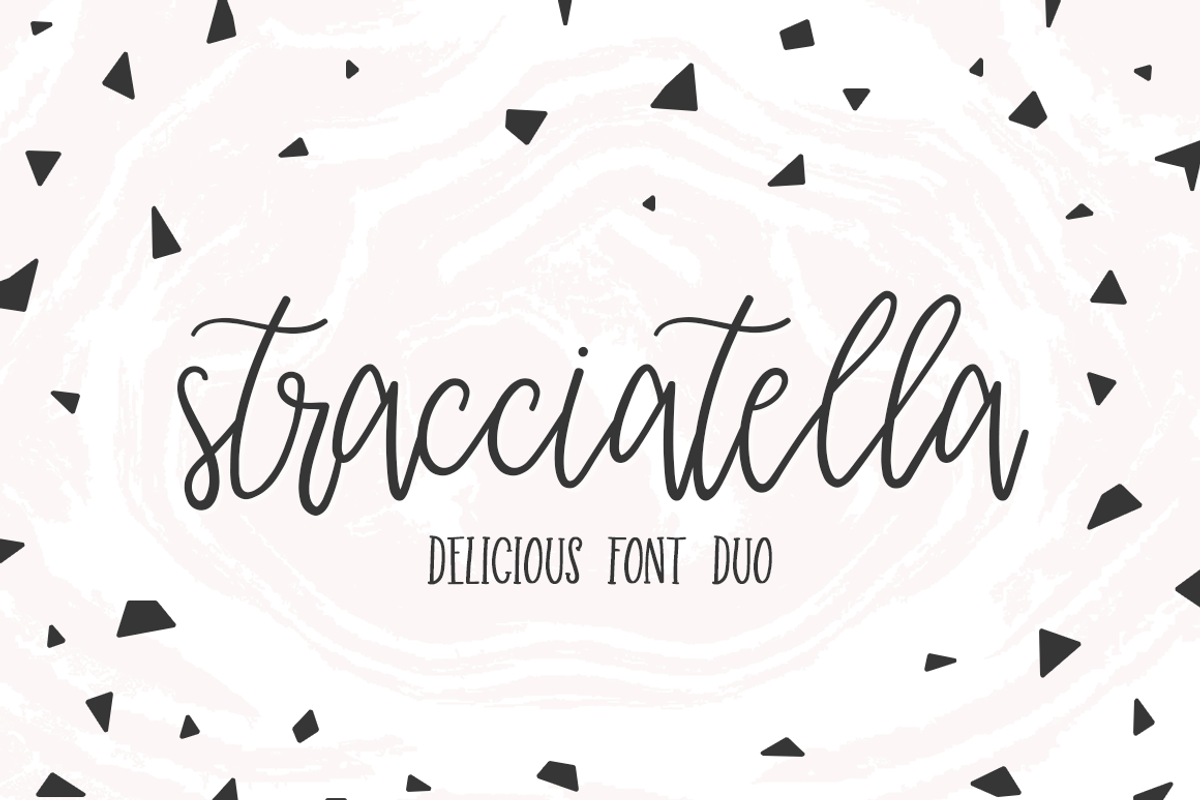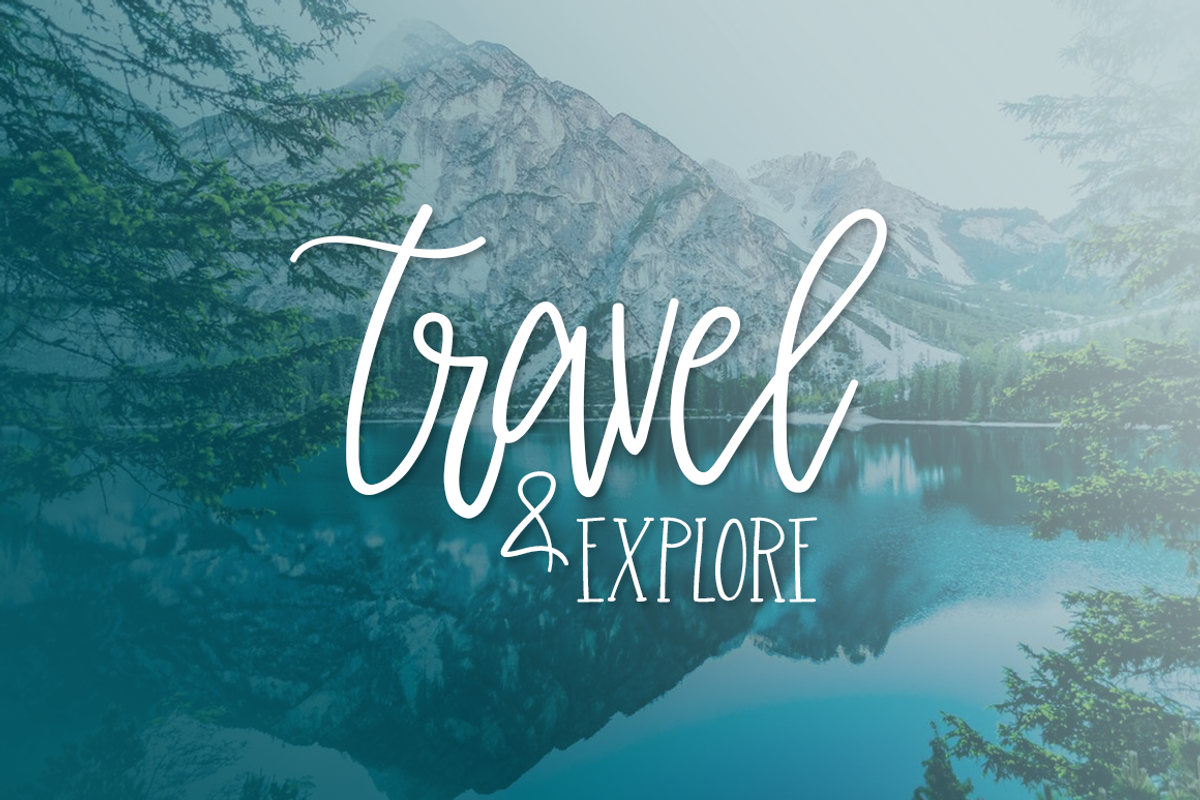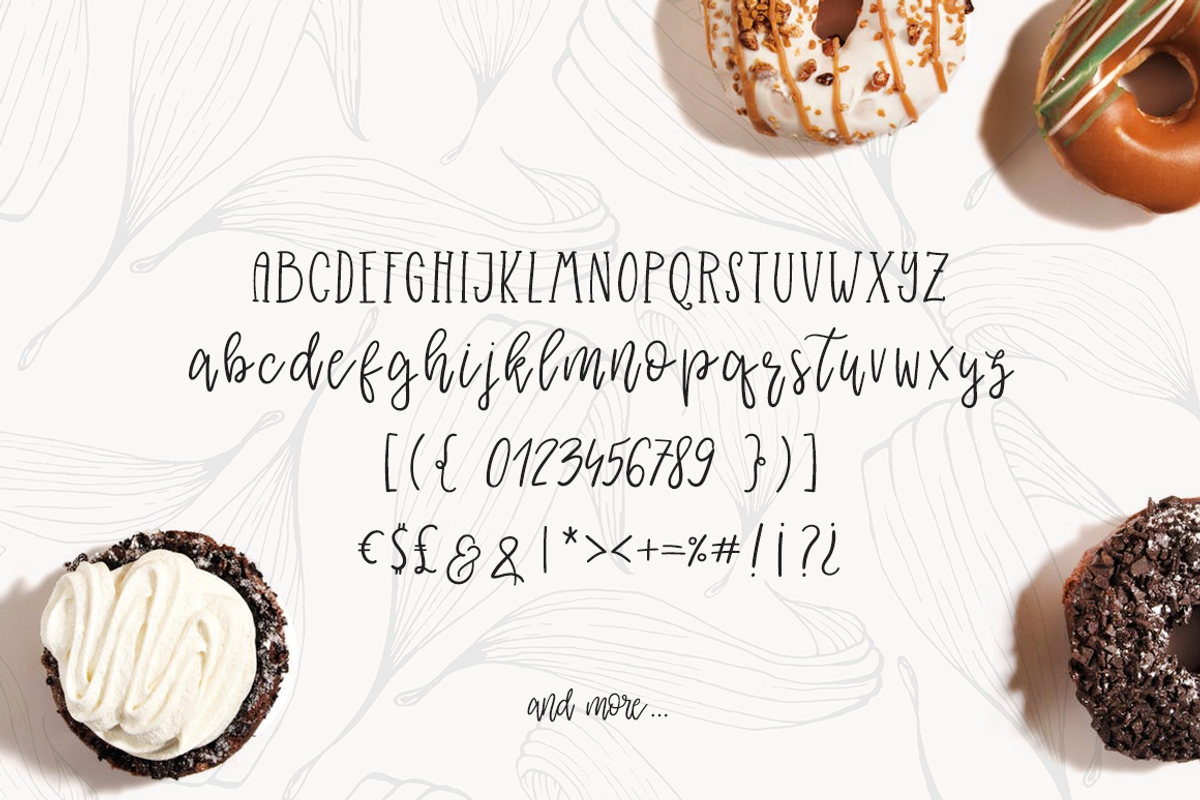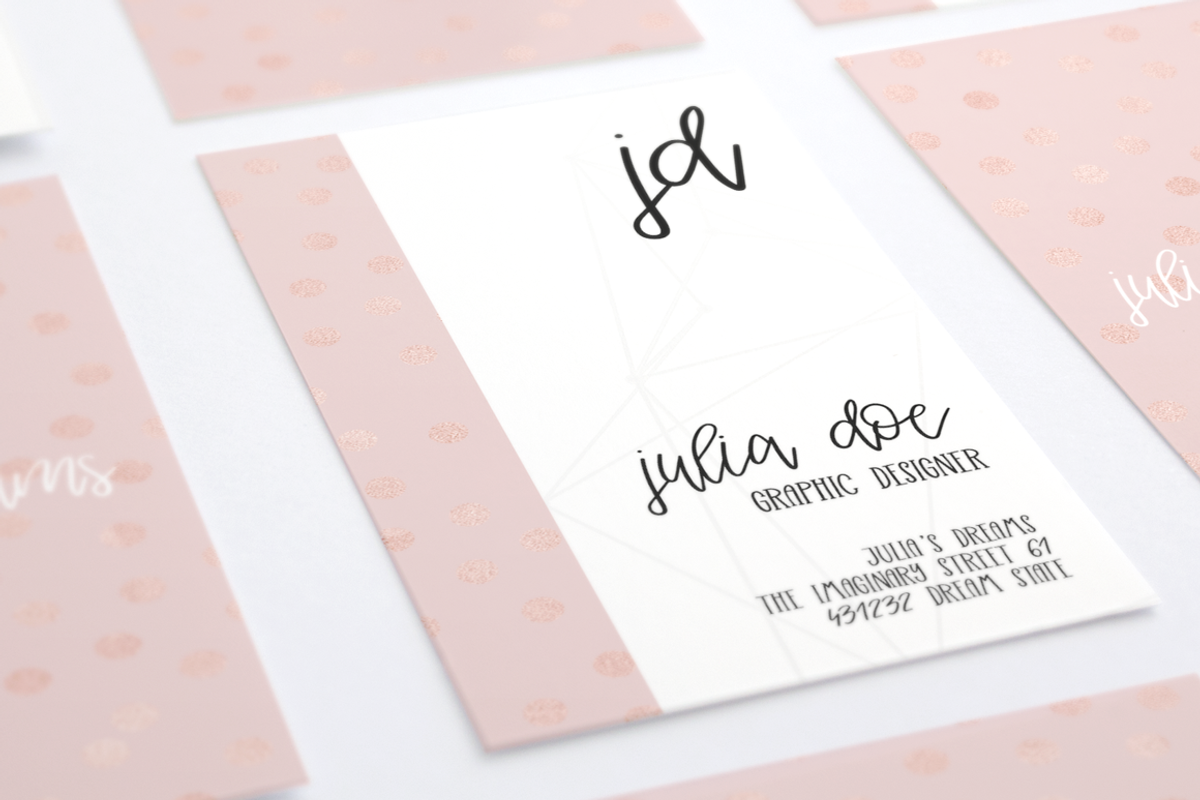
Stracciatella - Delicious font
Stracciatella is a calligraphic font with script lowercase characters and slab hand-written uppercase characters. It includes:
Lowecase and uppercase letters
Latin extended characters, basic currencies, punctations, and numbers
PUA encoded extra characters
Stracciatella - Delicious font by Junik Studio fits naturally into Branding, posters, packaging, typography.